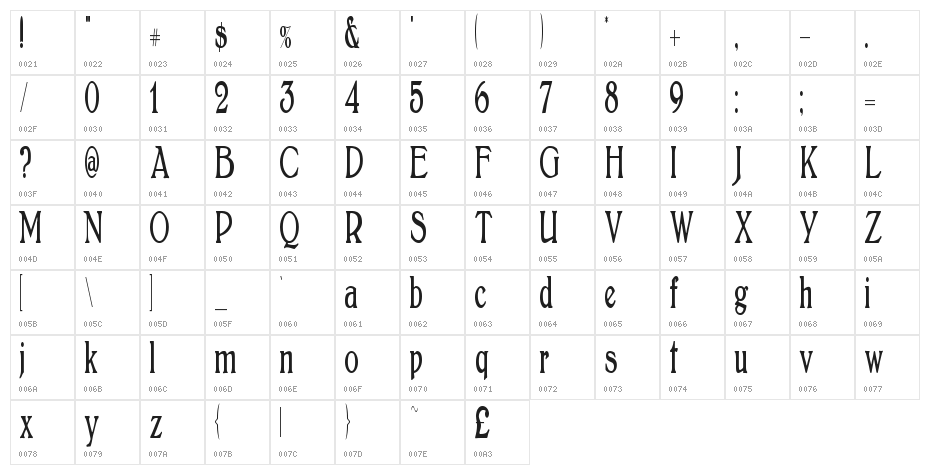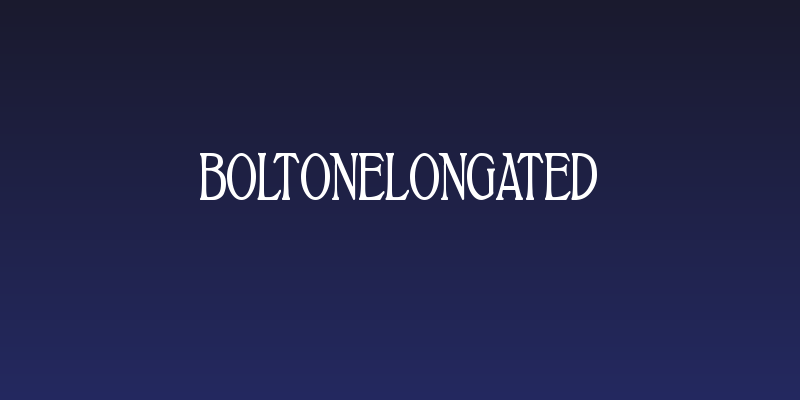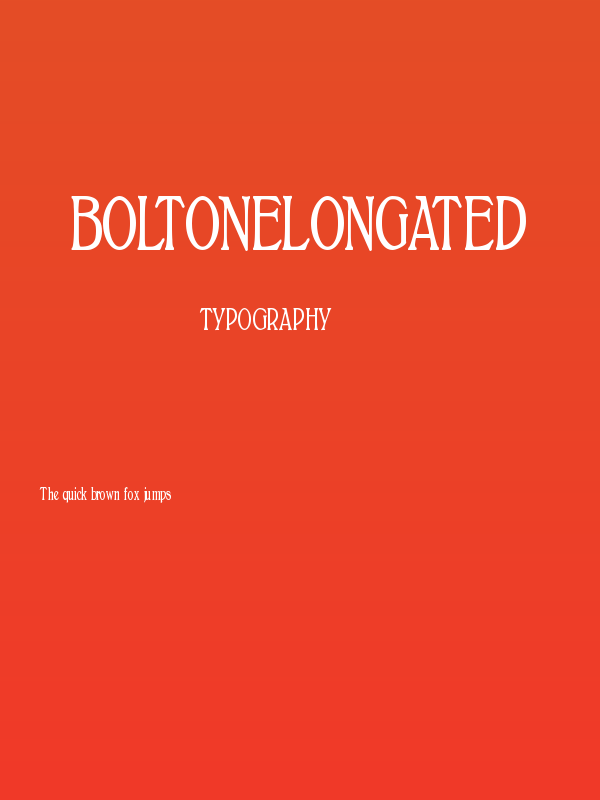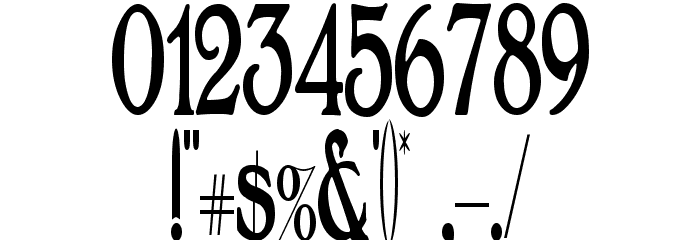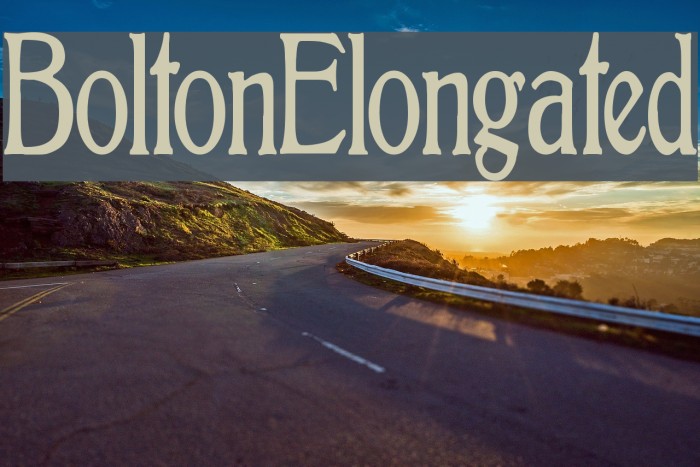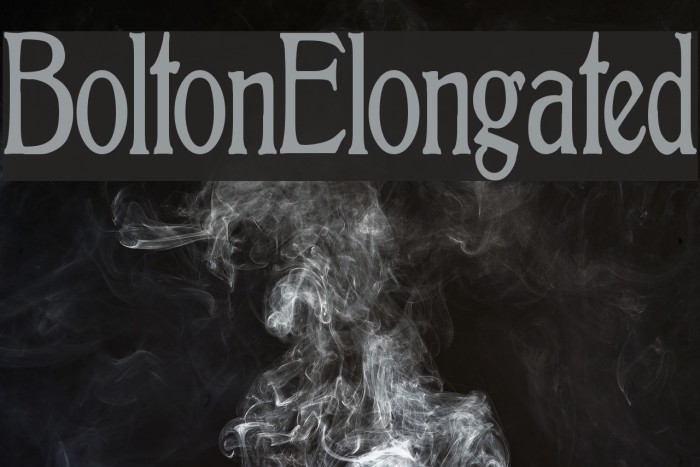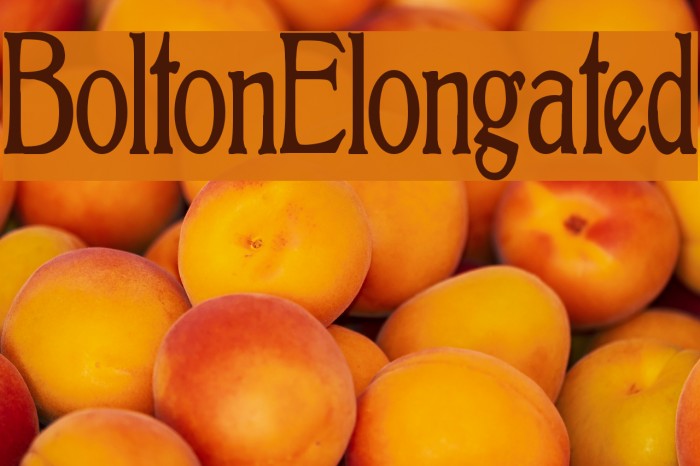
BoltonElongated Font
BoltonElongated Description
This font features an elongated and elegant serif style, characterized by its tall and narrow letterforms. The serifs are pronounced, adding a touch of sophistication and classic appeal. The uppercase letters are particularly striking, with a graceful flow that enhances readability while maintaining a decorative flair. The lowercase letters complement the uppercase with a consistent style, ensuring a harmonious overall appearance. Numbers and special characters are designed with the same attention to detail, making them suitable for various applications. The font's unique style is ideal for projects that require a blend of tradition and modernity.
| Proposed Projects | Ideal for book covers, editorial design, branding, and luxury product packaging. |